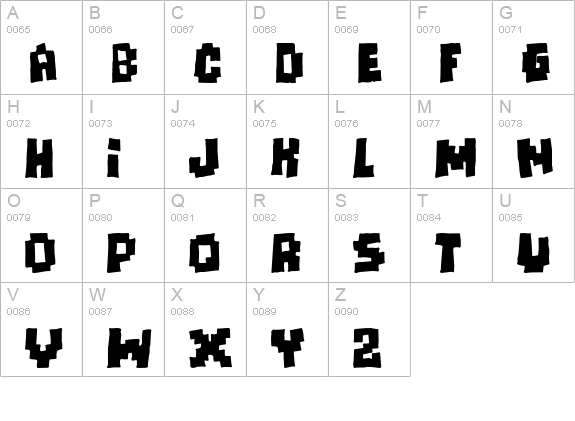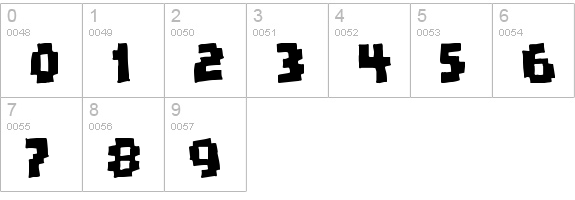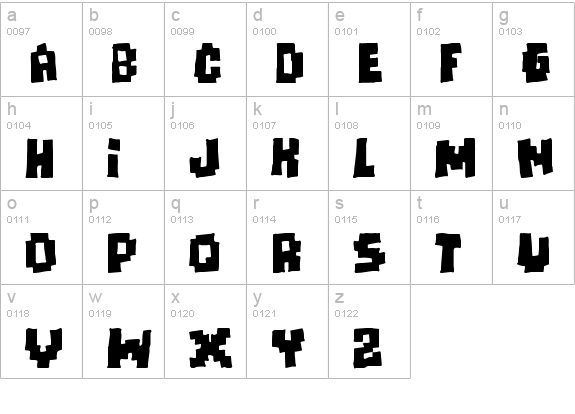
Freaks of Nature [massive] Font Details
The Freaks of Nature [massive] font is a striking and bold typeface that commands attention with its unique and unconventional design. This font is perfect for making a statement and standing out from the crowd. Its massive size and intricate details make it a must-have for anyone looking to add a touch of personality to their design projects. The best part? This eye-catching font is available for free download at FontsMarket.com. Don't miss out on the opportunity to elevate your designs and make a lasting impression with the Freaks of Nature [massive] font. Download it today and let your creativity run wild!